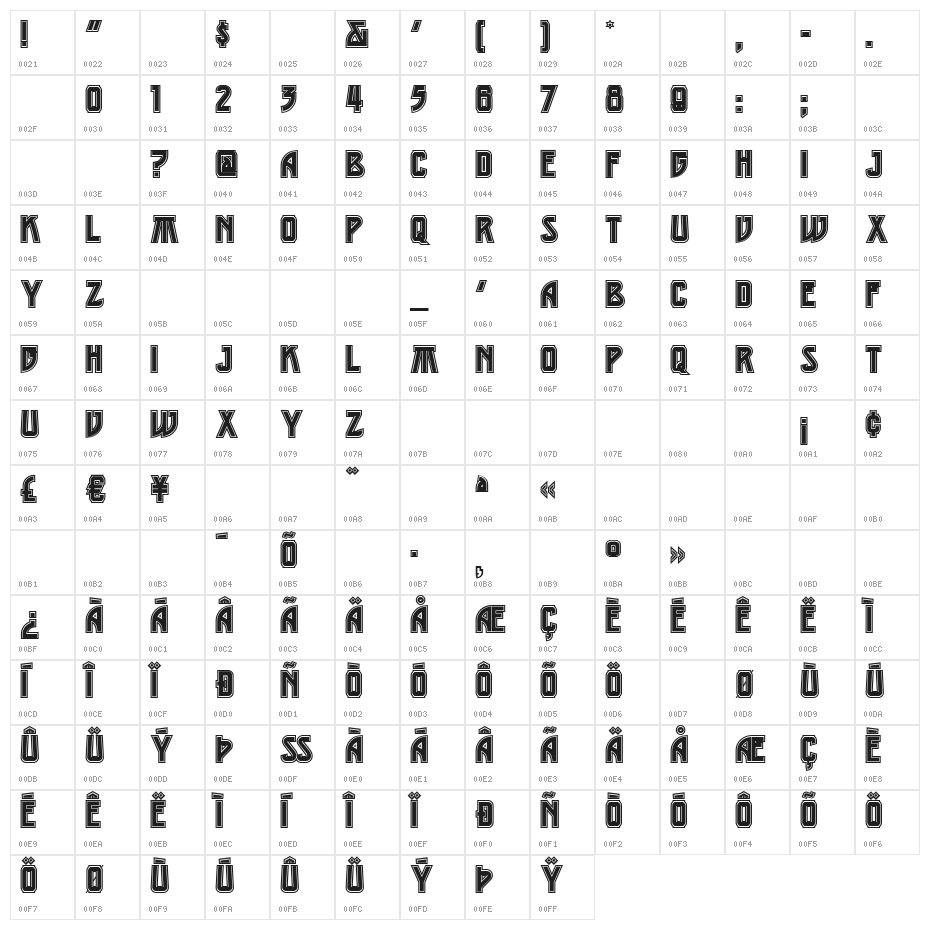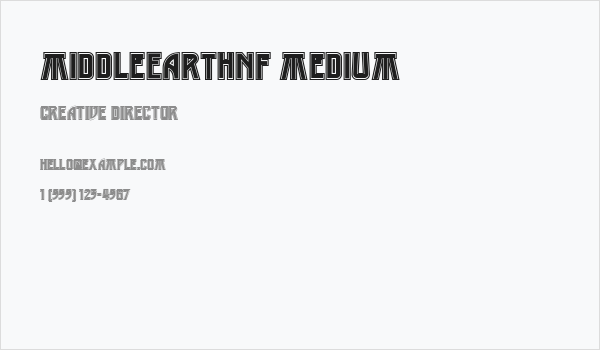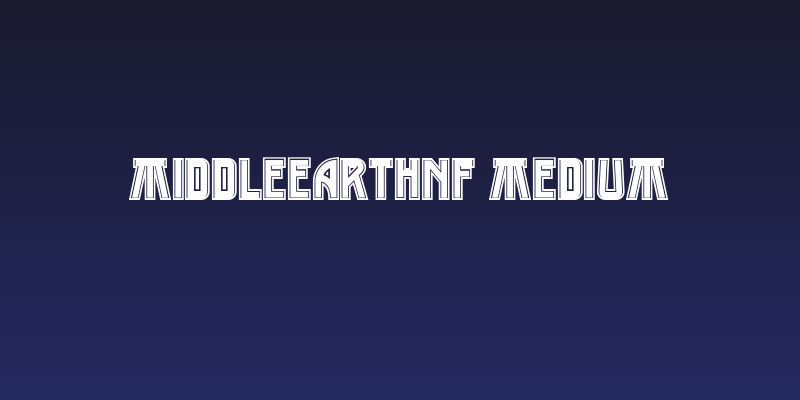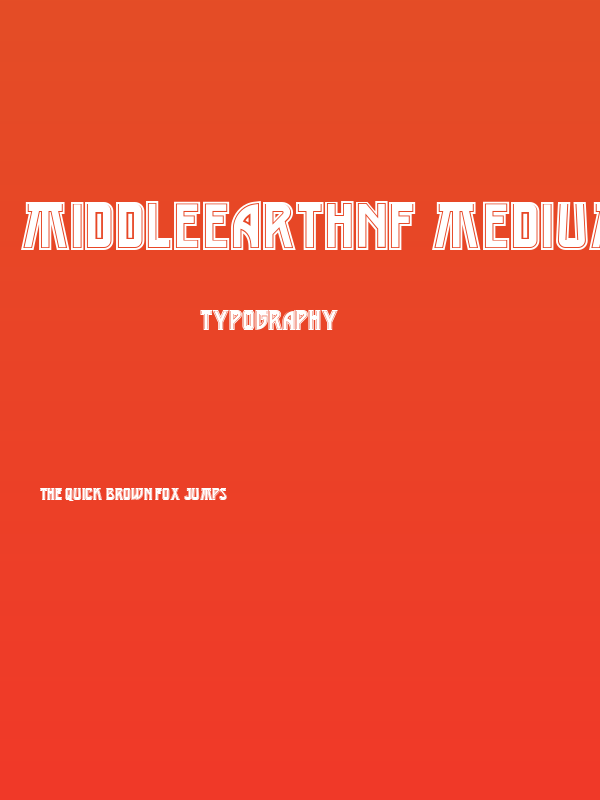
MiddleEarthNF Medium Font
| Vorgeschlagene Projekte | Ideal for fantasy-themed posters, video game titles, book covers, and branding that requires a dramatic flair. |